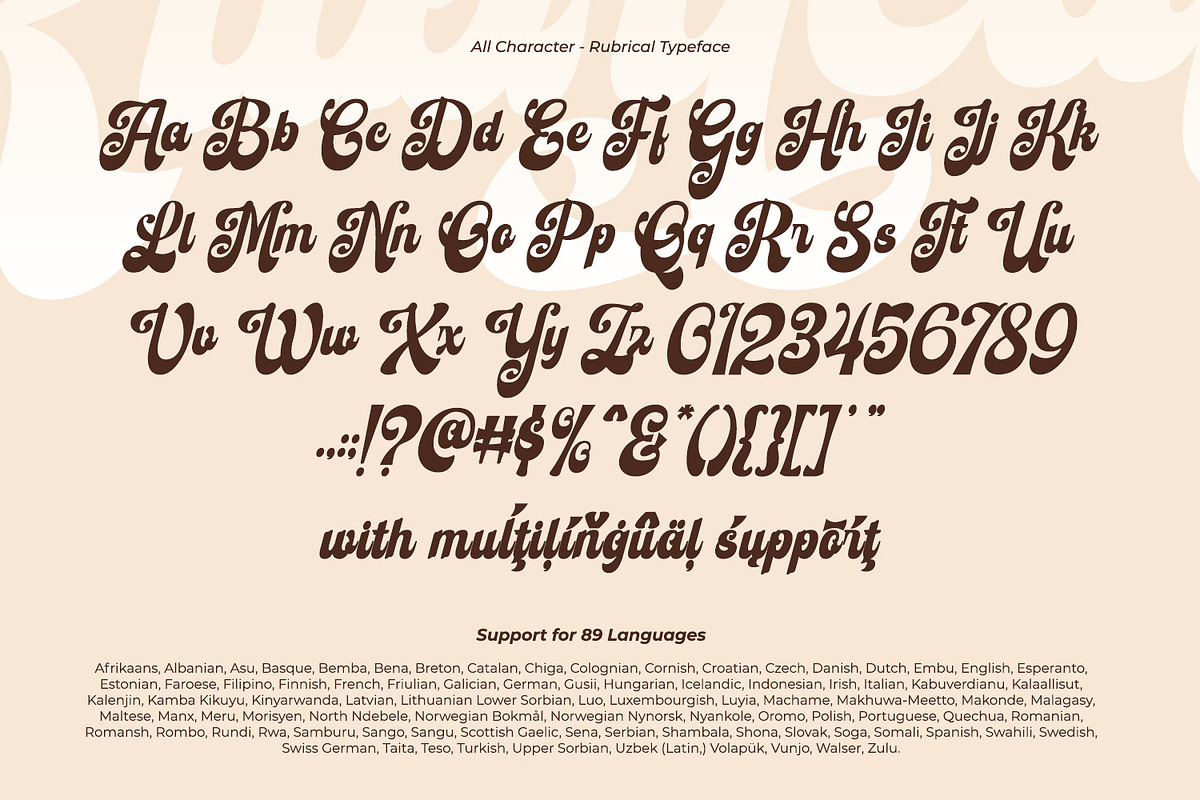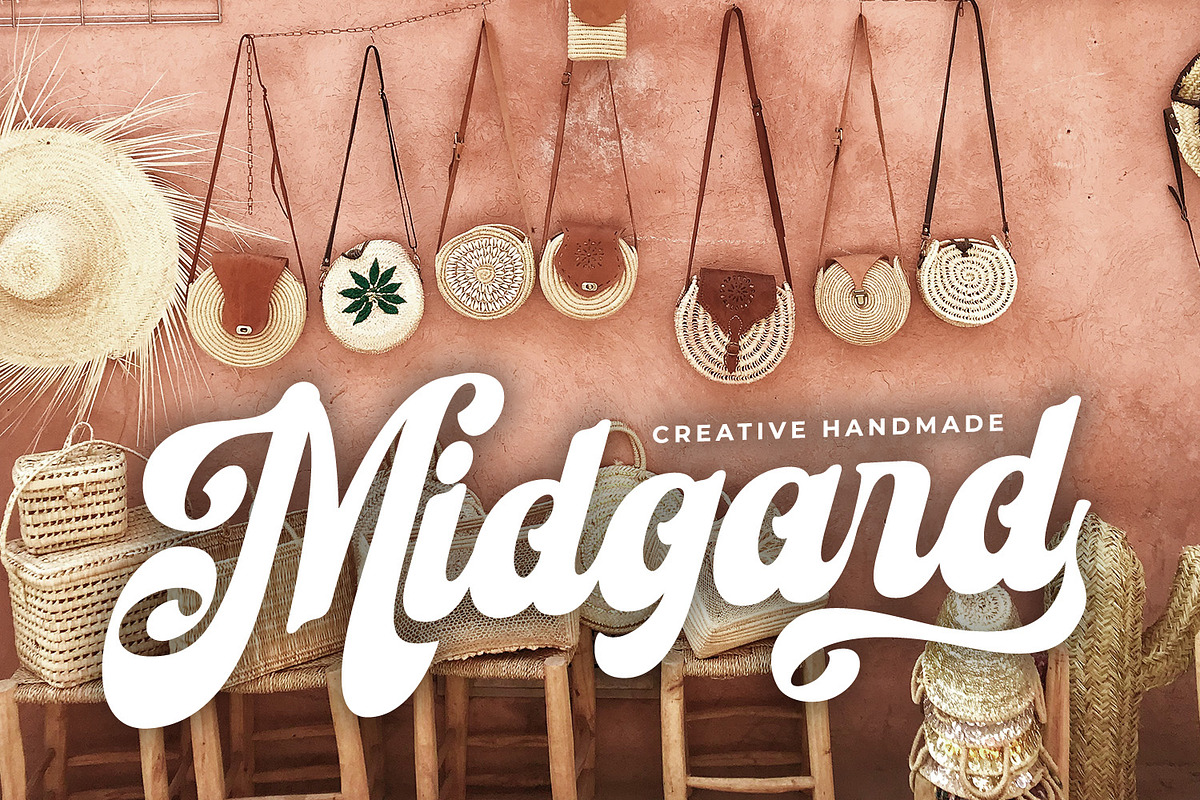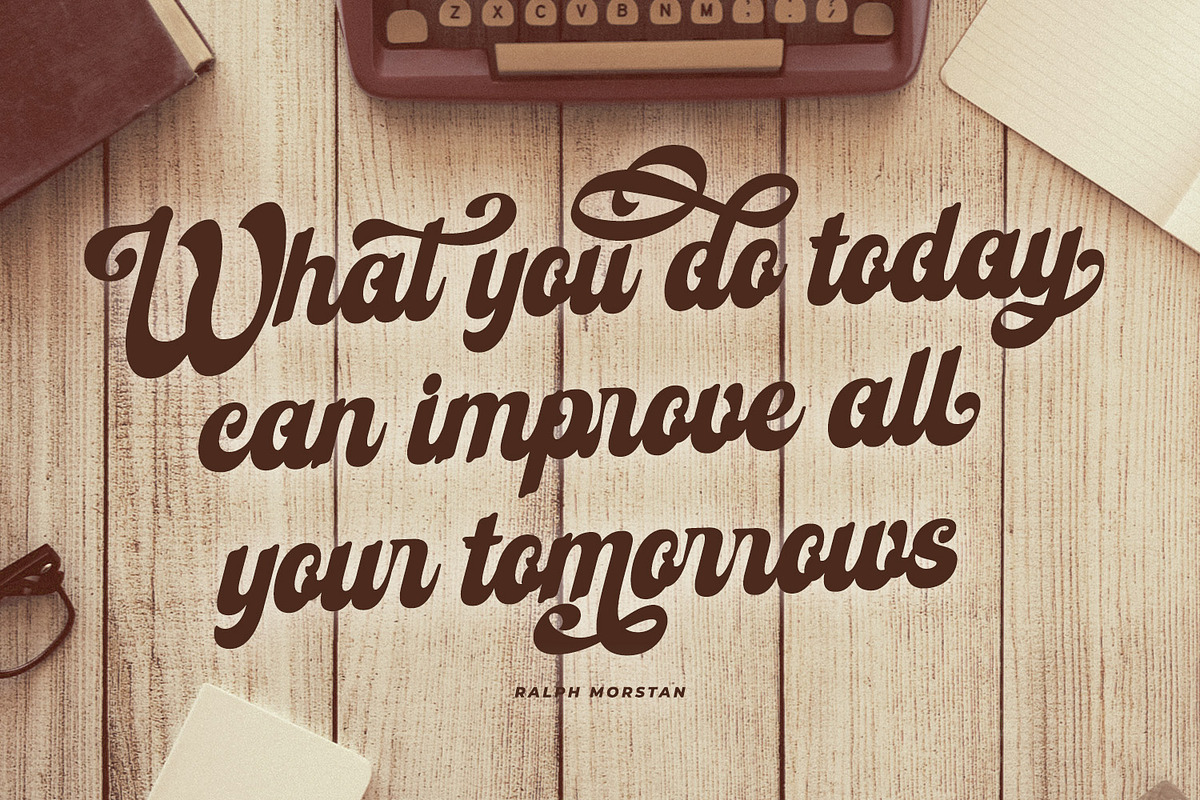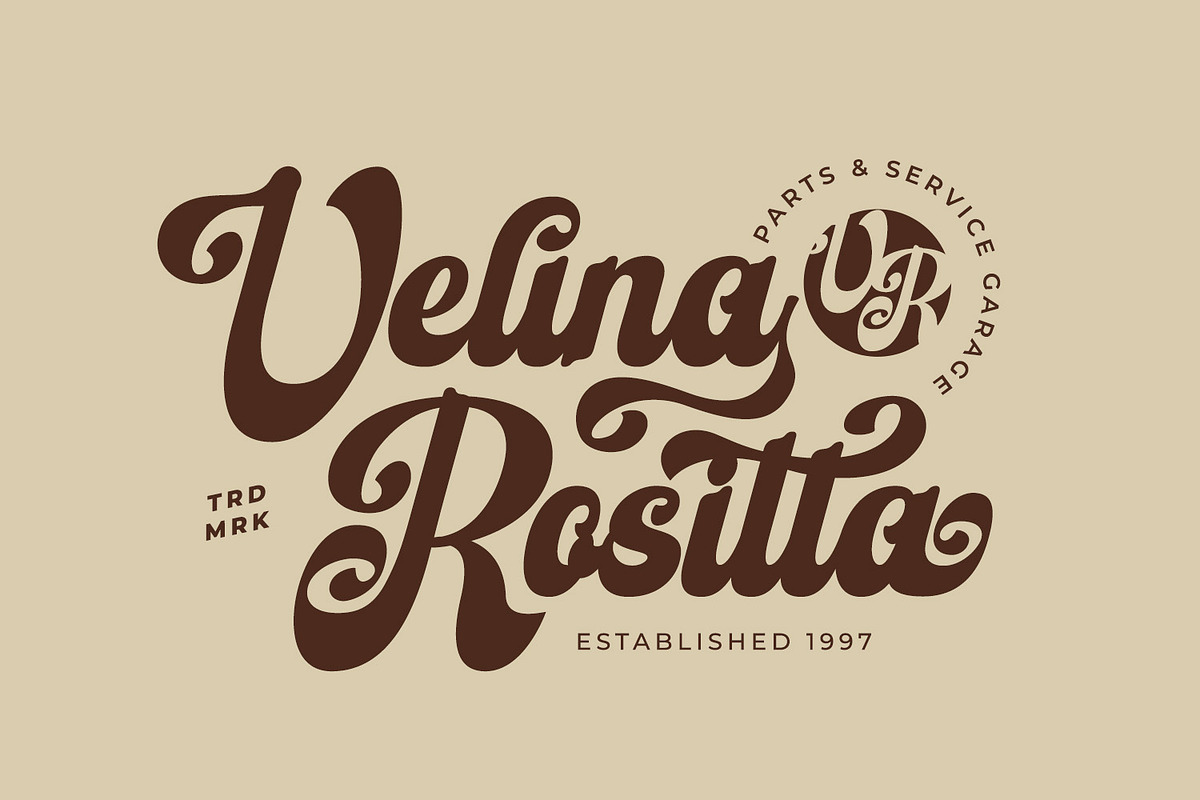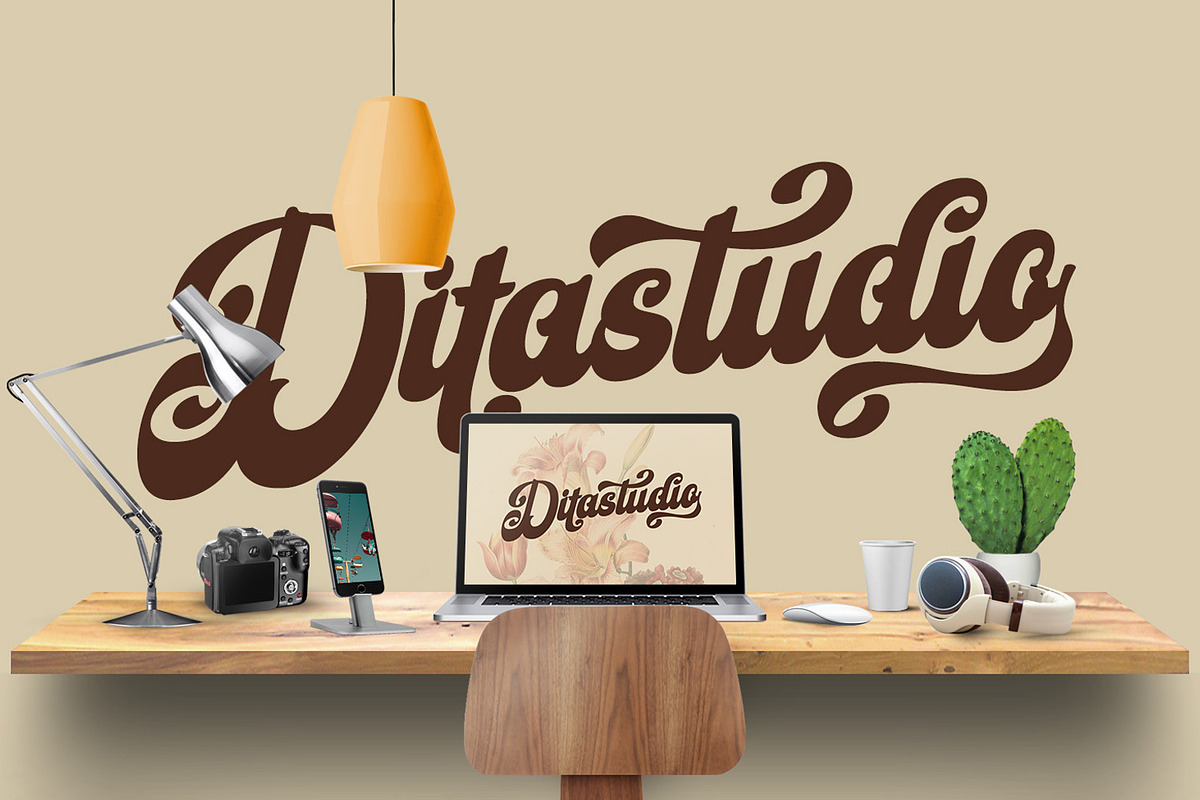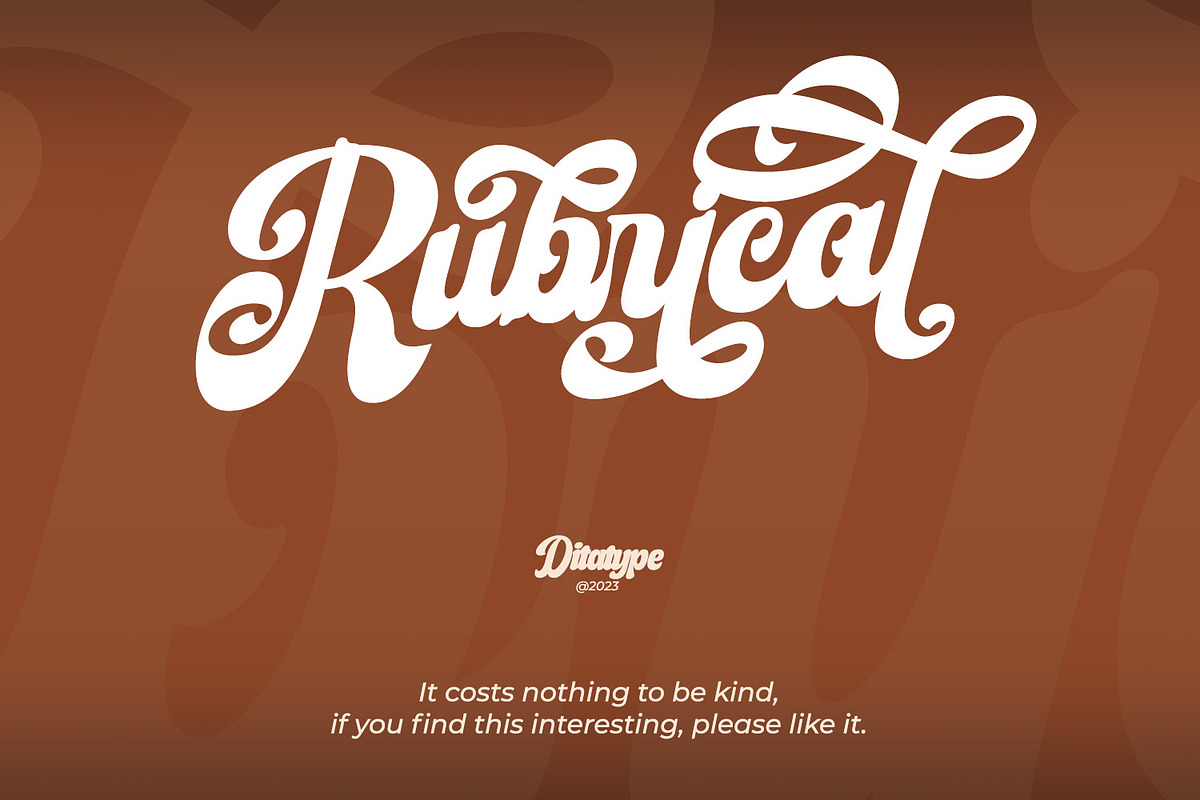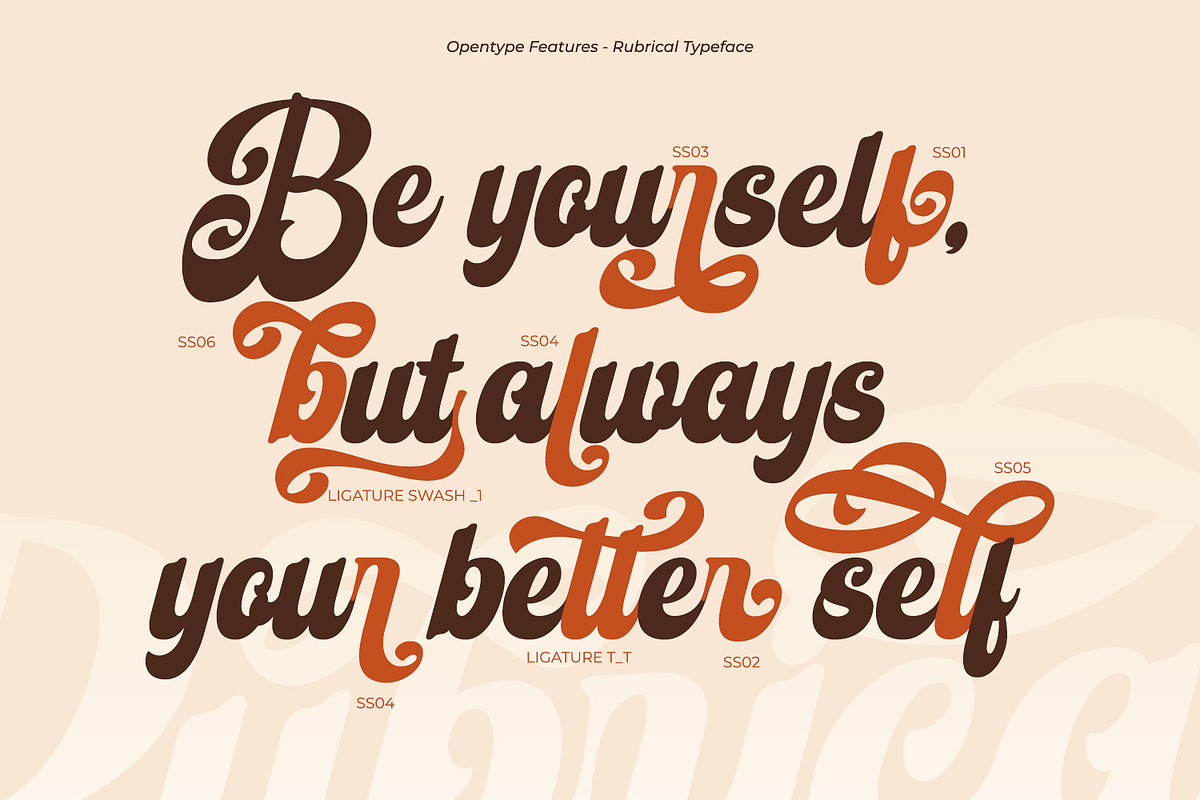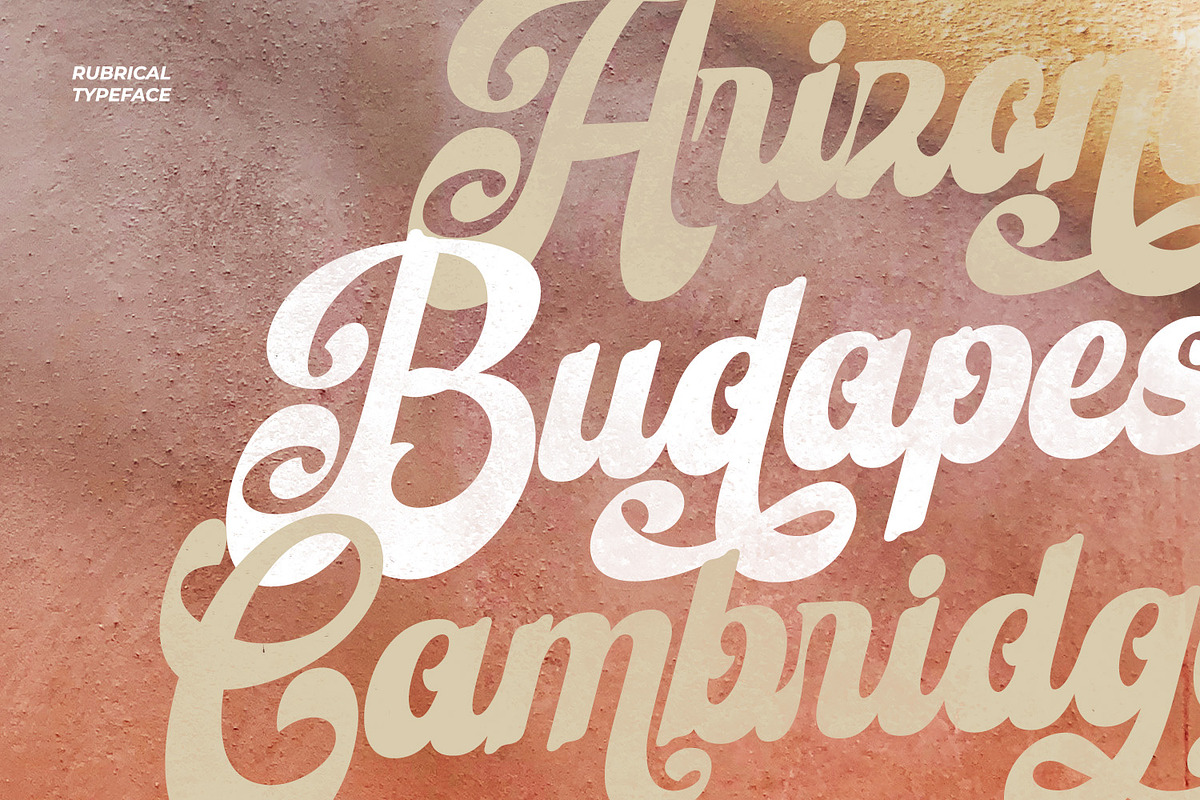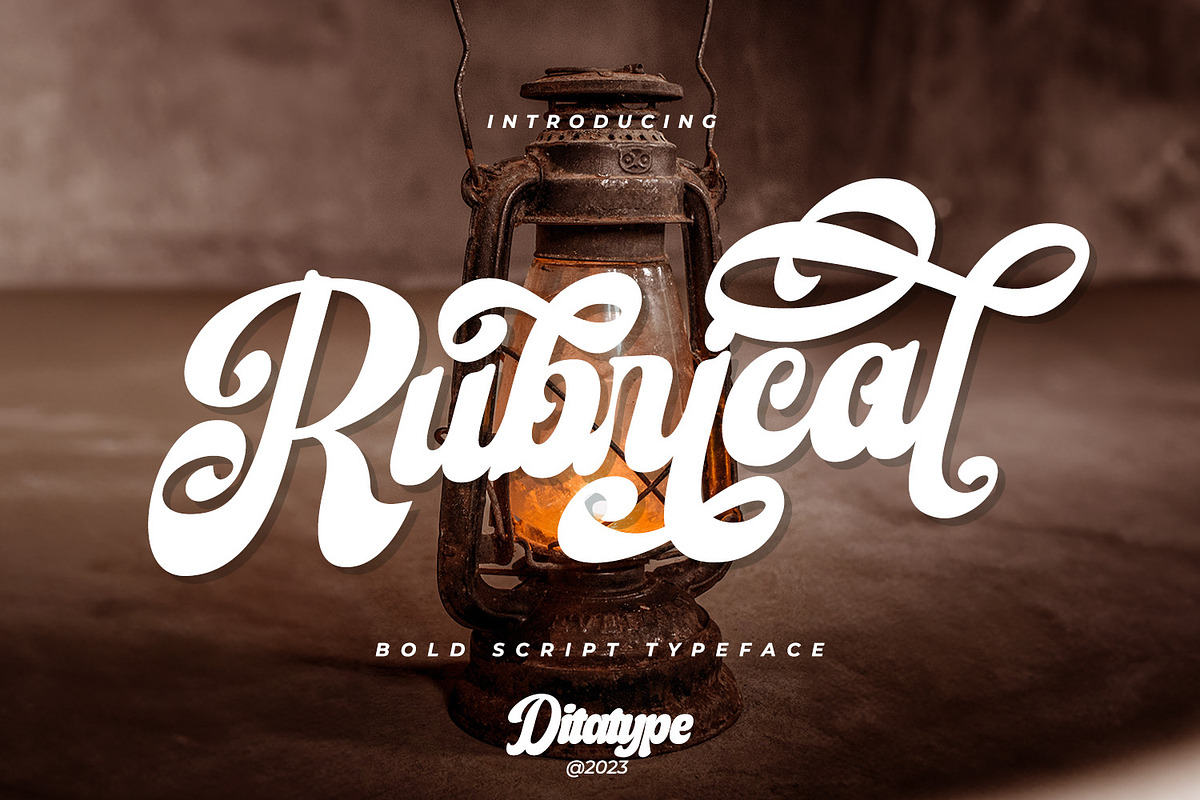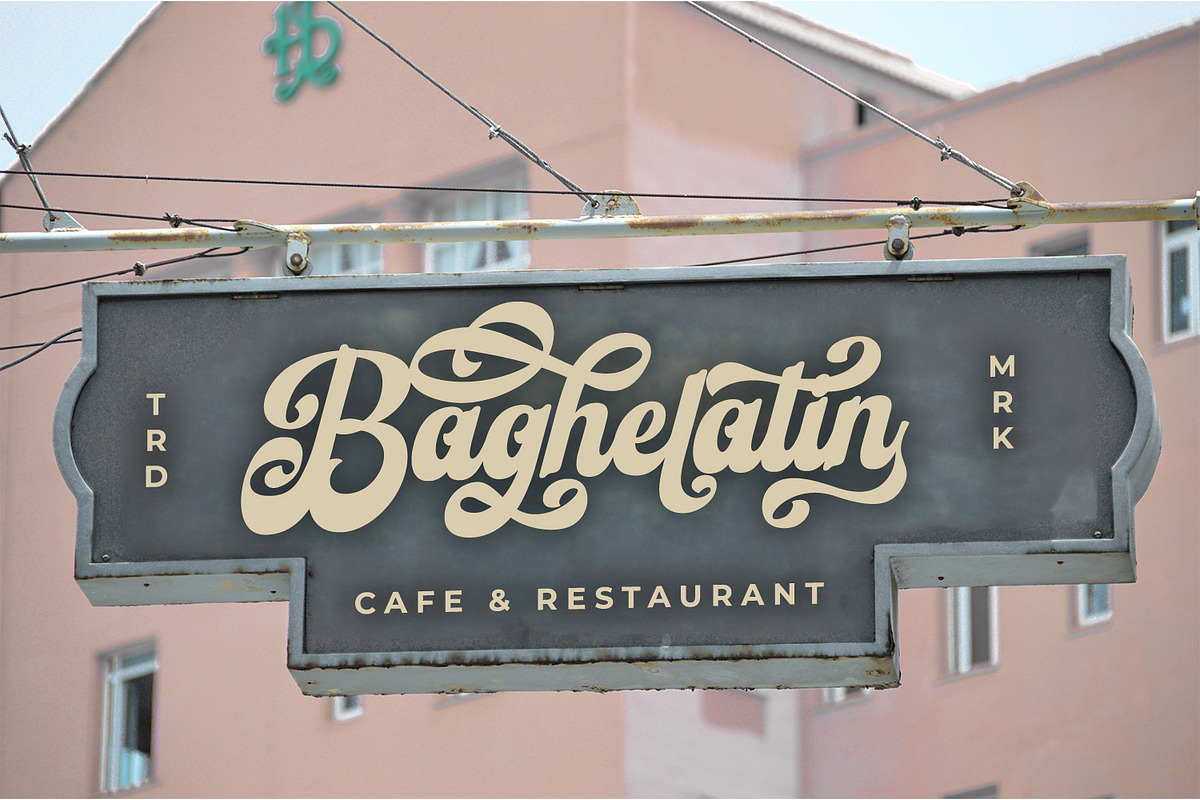
Rubrical
Introducing Rubrical, a script font that gives personalized feel to the design with a confident presence. This typeface is characterized by its substantial weight, giving your design a bold and impactful appearance. Rubrical maintains consistent proportions across all its letters, offering a sense of stability. It also adds a sense of warmth and personality.
It has flowing and connected letterforms that are embellished with graceful swings that adorn select letters. These decorative elements, which can include ornate initials or elegant swinging flourishes, add a touch of sophistication and artistic flair to your text. They create a visual journey that is engaging, unique, and memorable. In addition, enjoy the features here.
- Stylistic Sets
Rubrical fits in headlines, logos, posters, flyers, branding materials, print media, editorial layouts, and many more designs. Find out more ways to use this font by taking a look at the font preview.